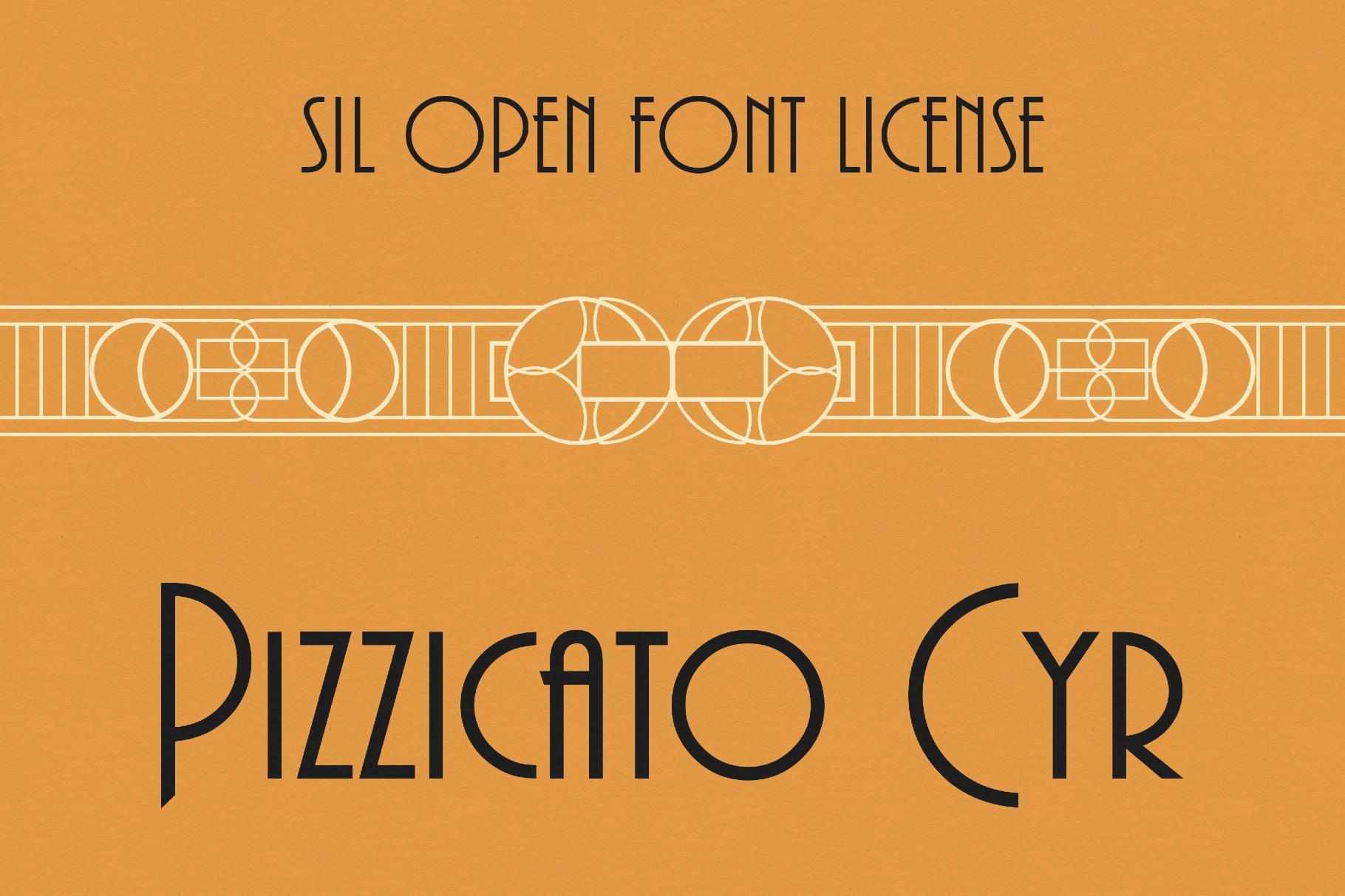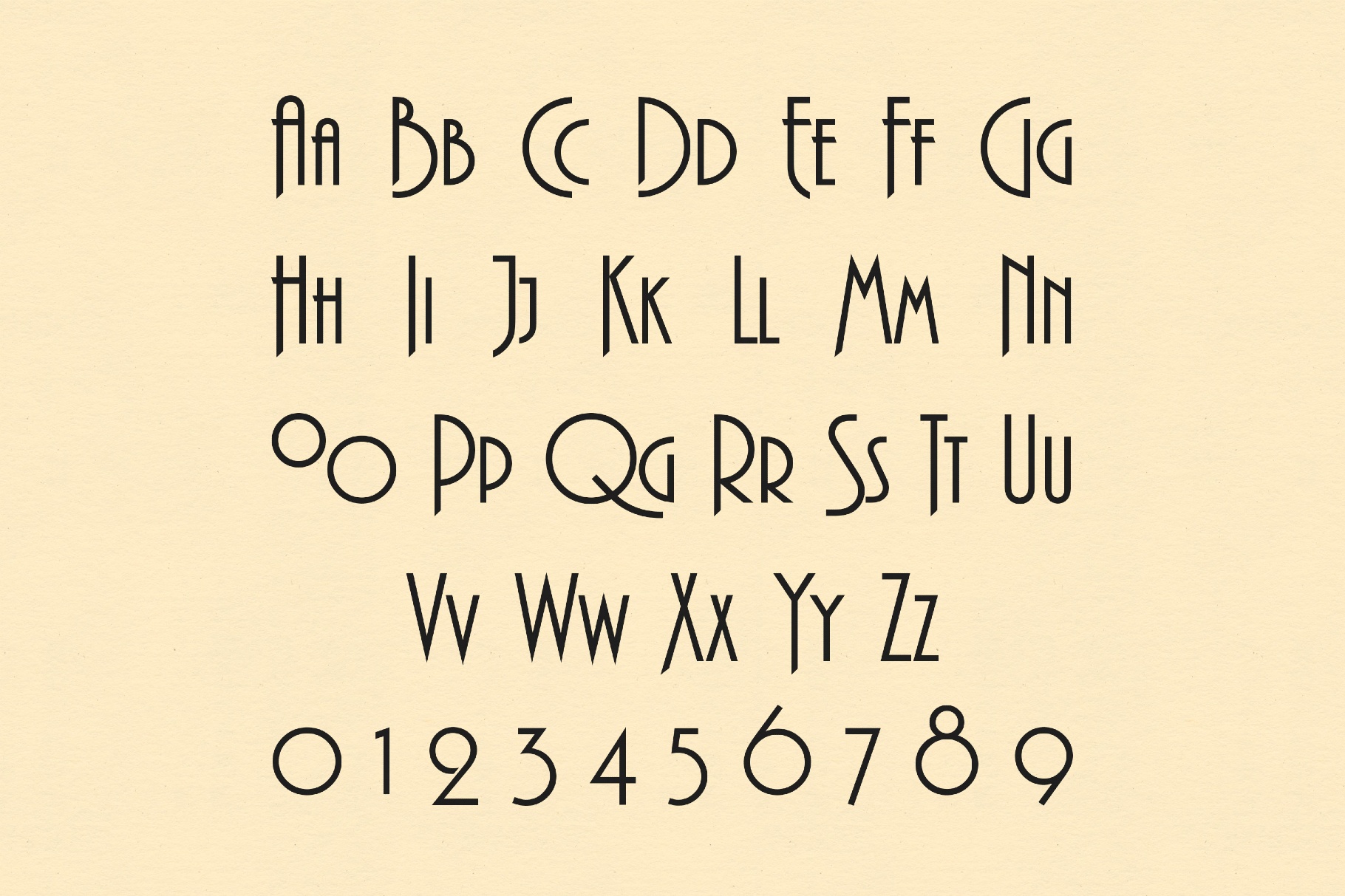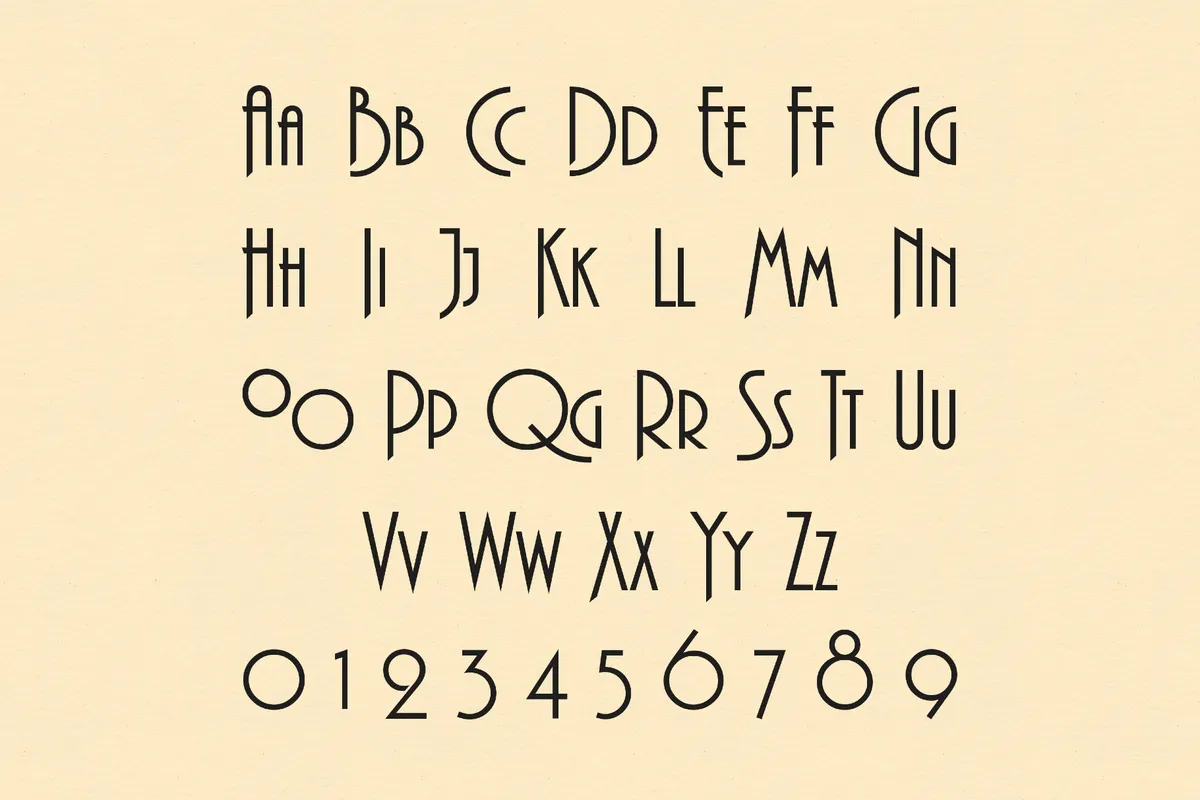
Pizzicato Cyr Font
Pizzicato Cyr is a compact, energetic all-caps font with a quirky rhythm, reminiscent of mid-century book covers and Soviet-era signage. With crisp verticals, smooth curves, and broad Latin–Cyrillic coverage, it works well for poster headlines, brand marks, packaging labels, music artwork, book covers, café menus, short editorials, packaging, web hero graphics, and event titles.
• Uppercase and lower uppercase letters.
• Numbers, punctuation, and symbols.
• Multilingual support across extended Latin and Cyrillic scripts.
• Extended support for mathematical symbols and metrics.
• Ligatures.